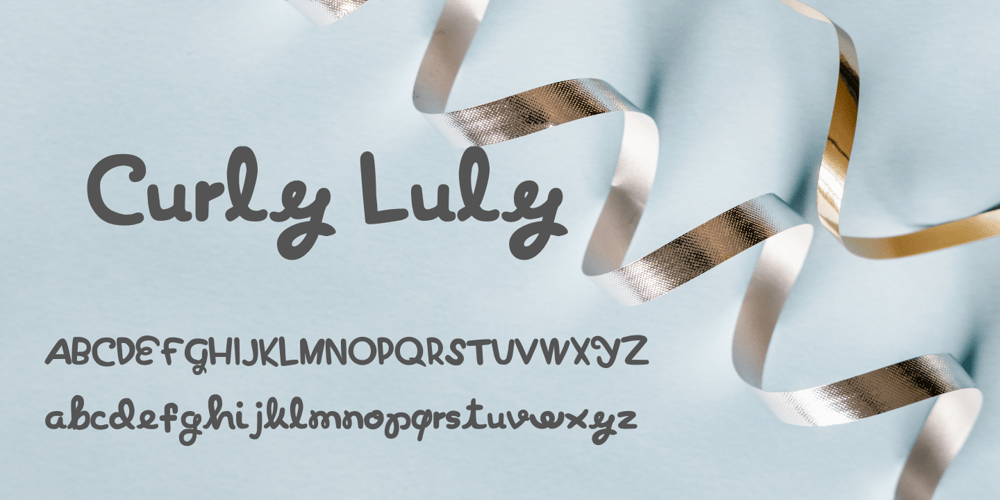
Curly Luly Font Family was designed by Phoenix Woodrow and published by FontHaus. Curly Luly contains 1 styles and family package options. Curly Luly was designed by Woodrow Phoenix, a British comics artist, writer, editorial illustrator, graphic designer, font designer and author of children’s books. Phoenix’s work is graphic and playful, while noted for its high degree of formal experimentation. He draws in very different styles, which make his comics appear to be the work of three or four completely different creators. This design is great for anything from children’s books, editorial, advertising, signage, culinary packaging, and the web.